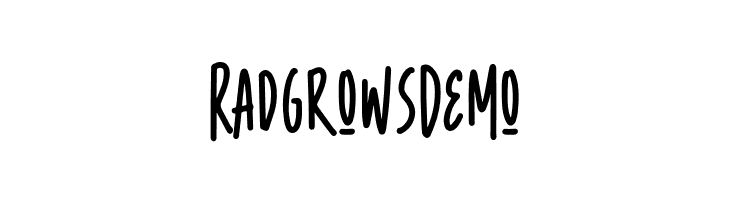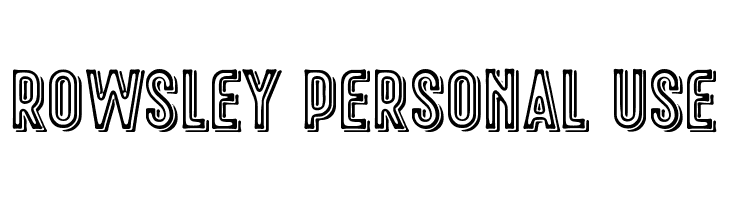
( Fonts by Letterena Studios )
A fluid and elegant script font with a natural handwritten style.
A bold, decorative font with a three-dimensional outline effect.
A bold, italicized font with a three-dimensional outline effect.
Futuristic geometric display font.
( Fonts by Letterhend Studio )
Playful handwritten font with a casual style.
( Fonts by Nathatype )
Elegant script font with decorative flourishes.
( Fonts by Suzuran San )
Elegant handwritten script font.
( Fonts by Maulana Creative )
Elegant handwritten script font.